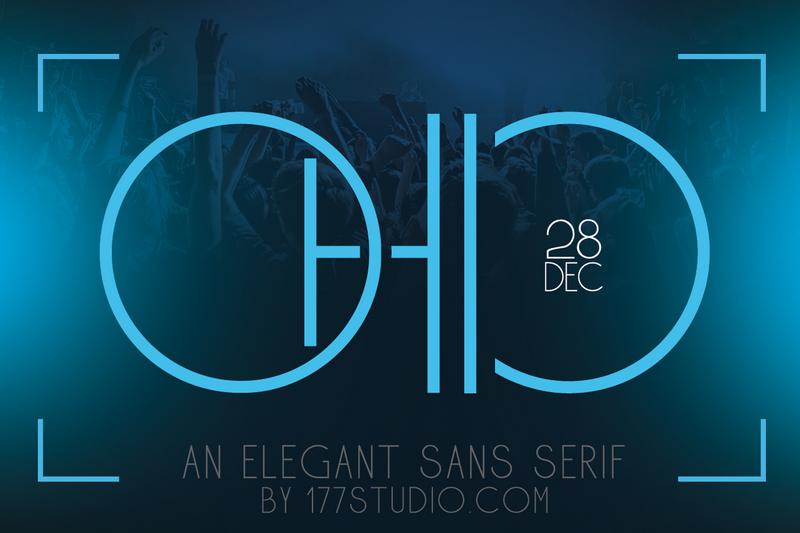
Preview and download Ohio Font. Created by Kenz in Basic Sans serif styles with Free for personal use license.
Introducing Ohio Font is a Futuristic Sans font with a stylish touch inspired by the famous minimalist logo and Ohio is perfect for the purposes of designing templates, brochures, videos, advertising branding, logos and more. NOTE: This demo font is for PERSONAL USE ONLY! and NO COMMERCIAL USE ALLOWED. If you make money with my font please purchase the license to: https://177studio.com/product/ohio-futuristic-sans-serif-font/ or https://gumroad.com/l/NTfwiR --------------------------- Also check out for free demo: https://befonts.com/author/177studio https://www.fontspace.com/177studio https://www.dafont.com/kenz.d8820 --------------------------- Thank you for download and your appreciated. Keep Support our work and Happy Design !! if you have any problem, let we know by email: admin@177studio.com |